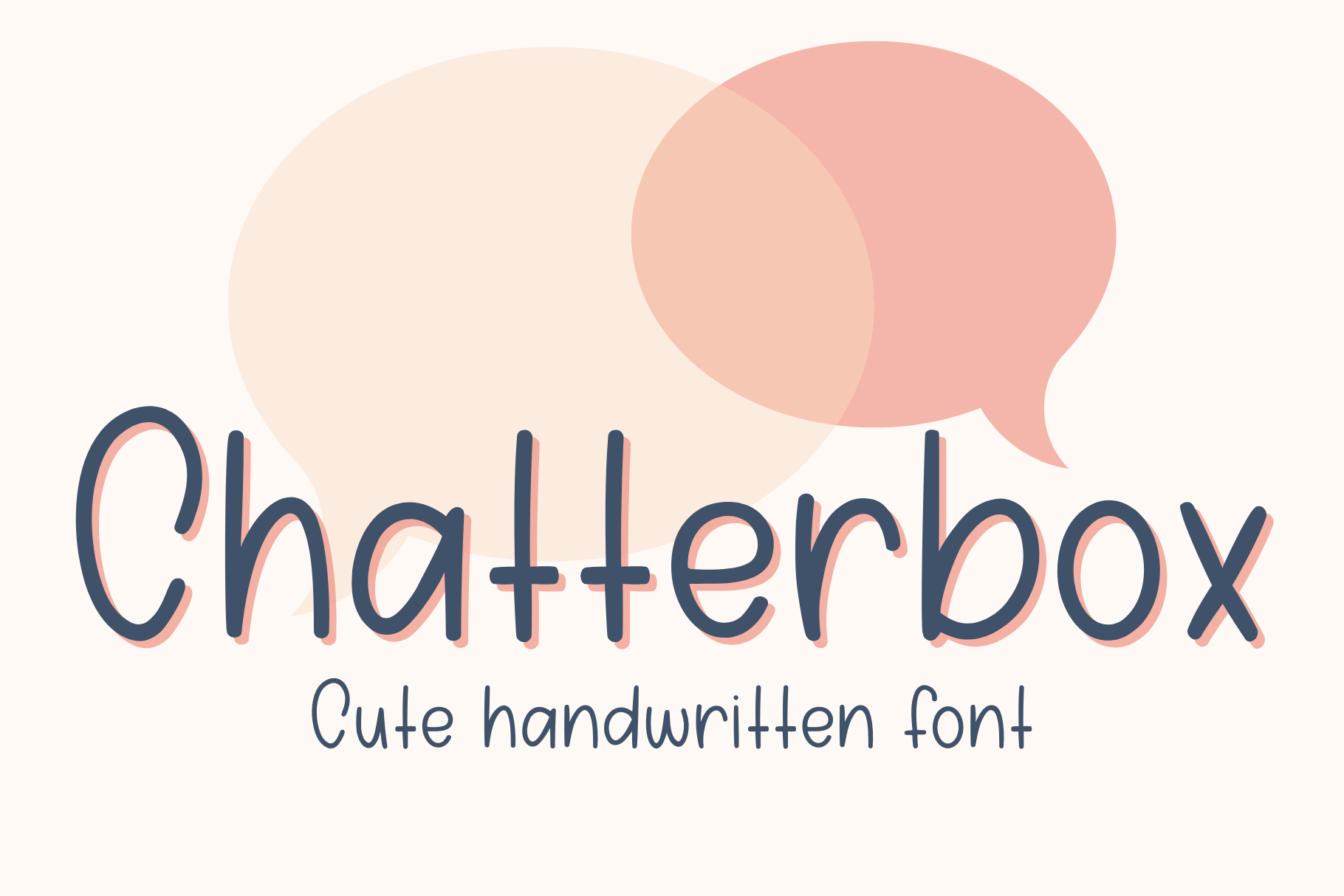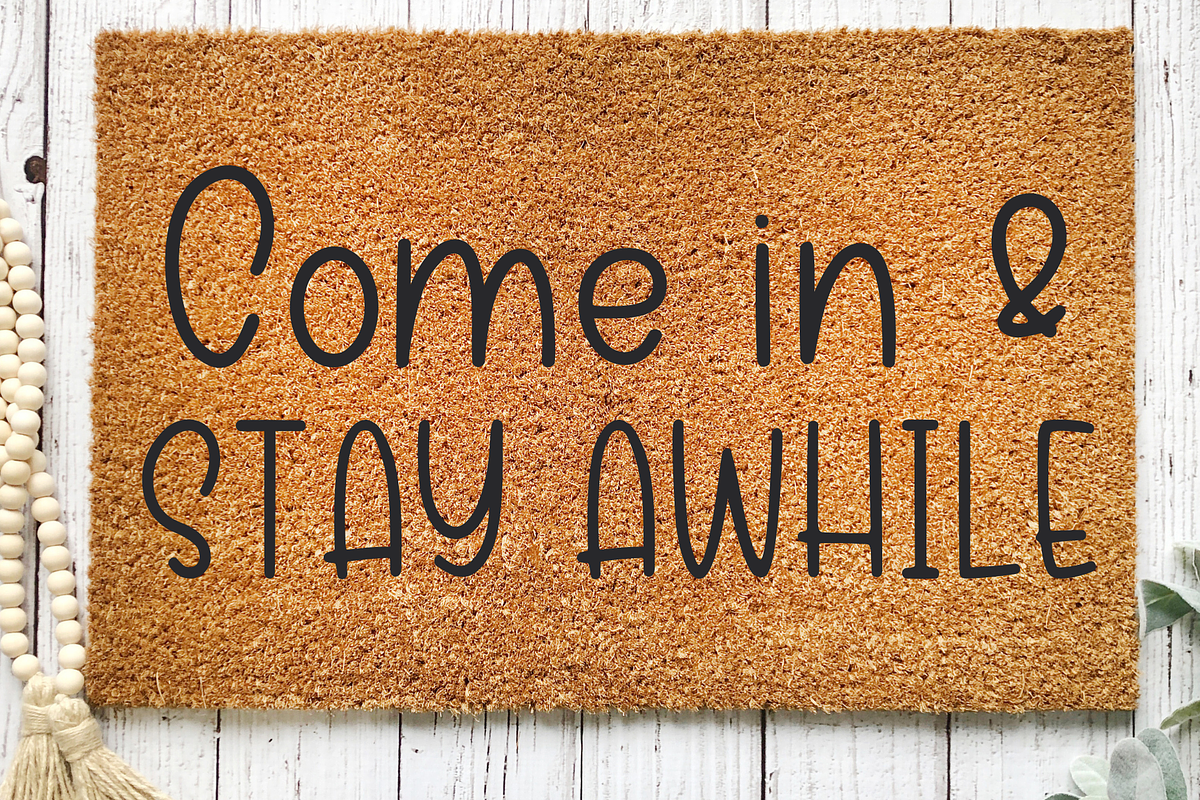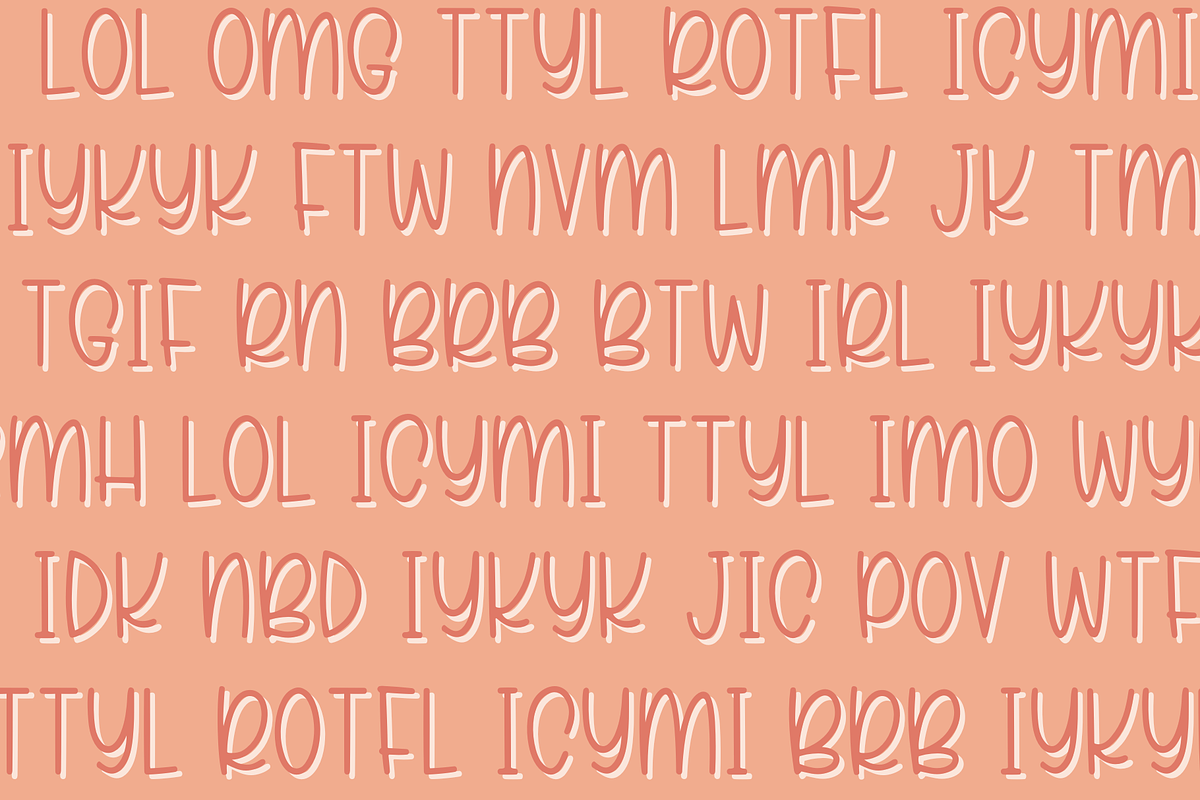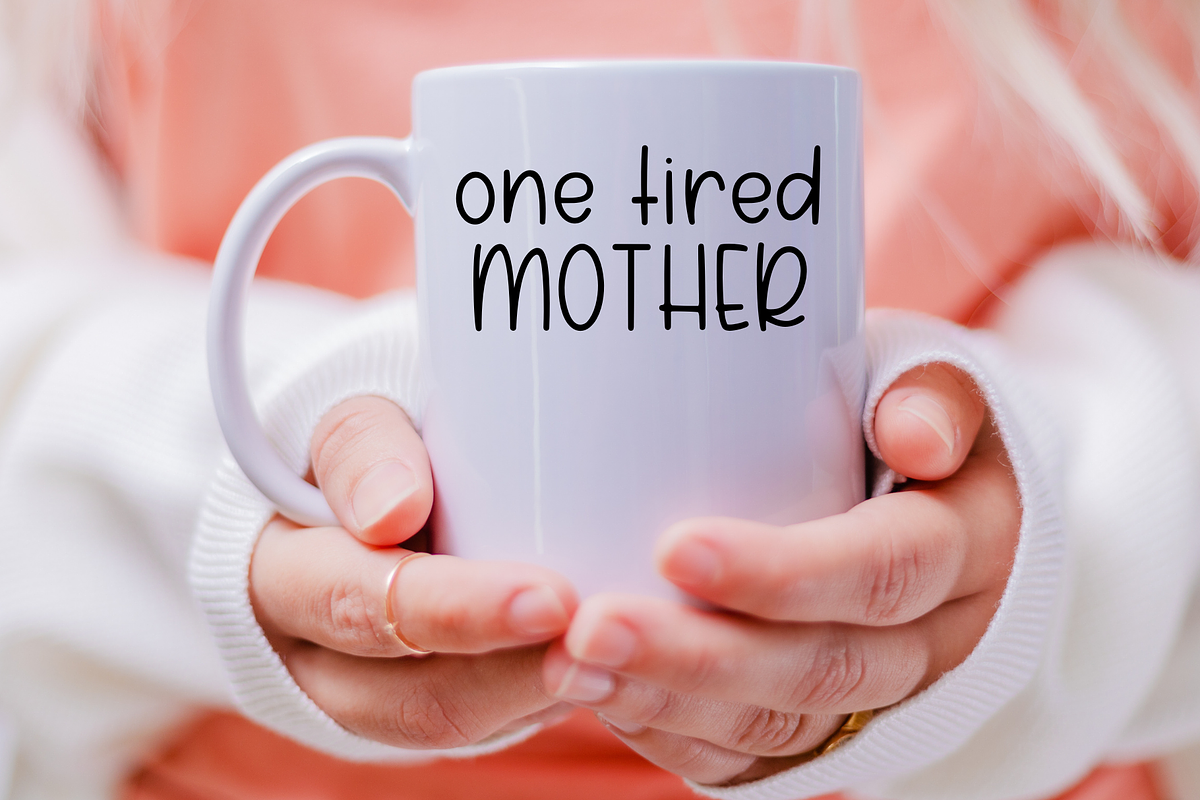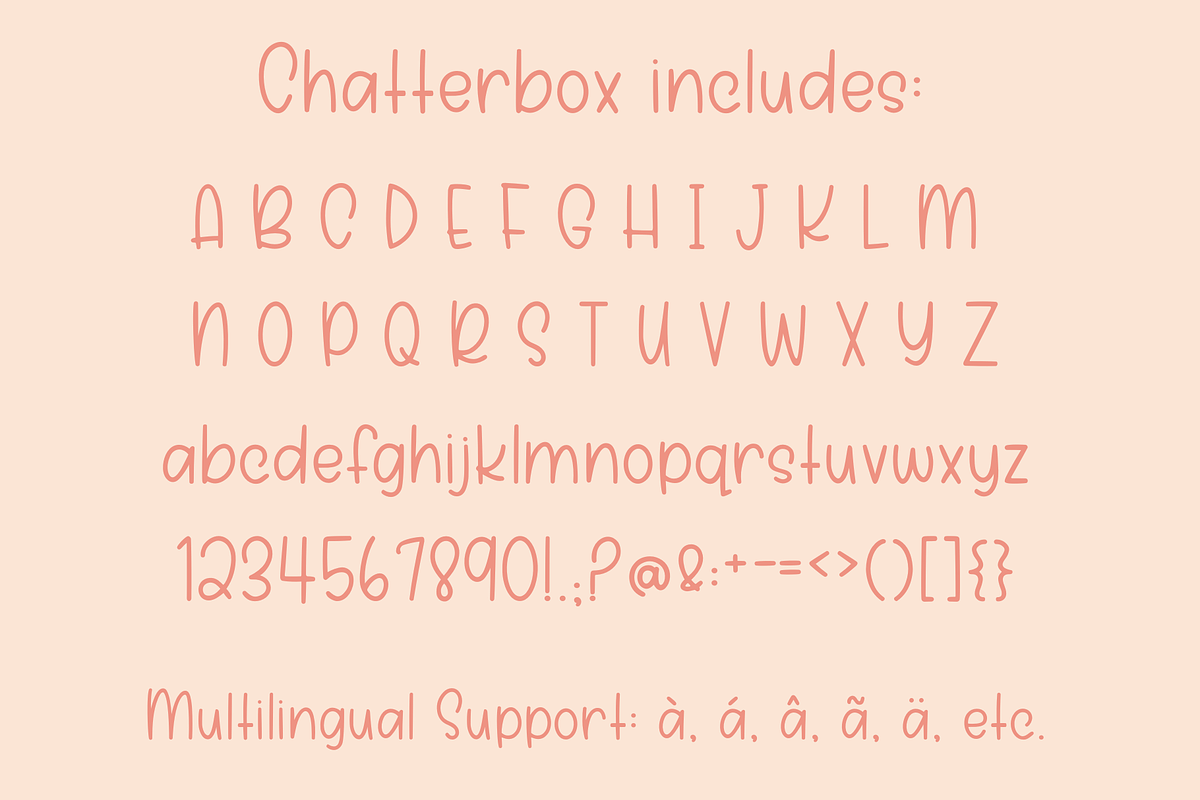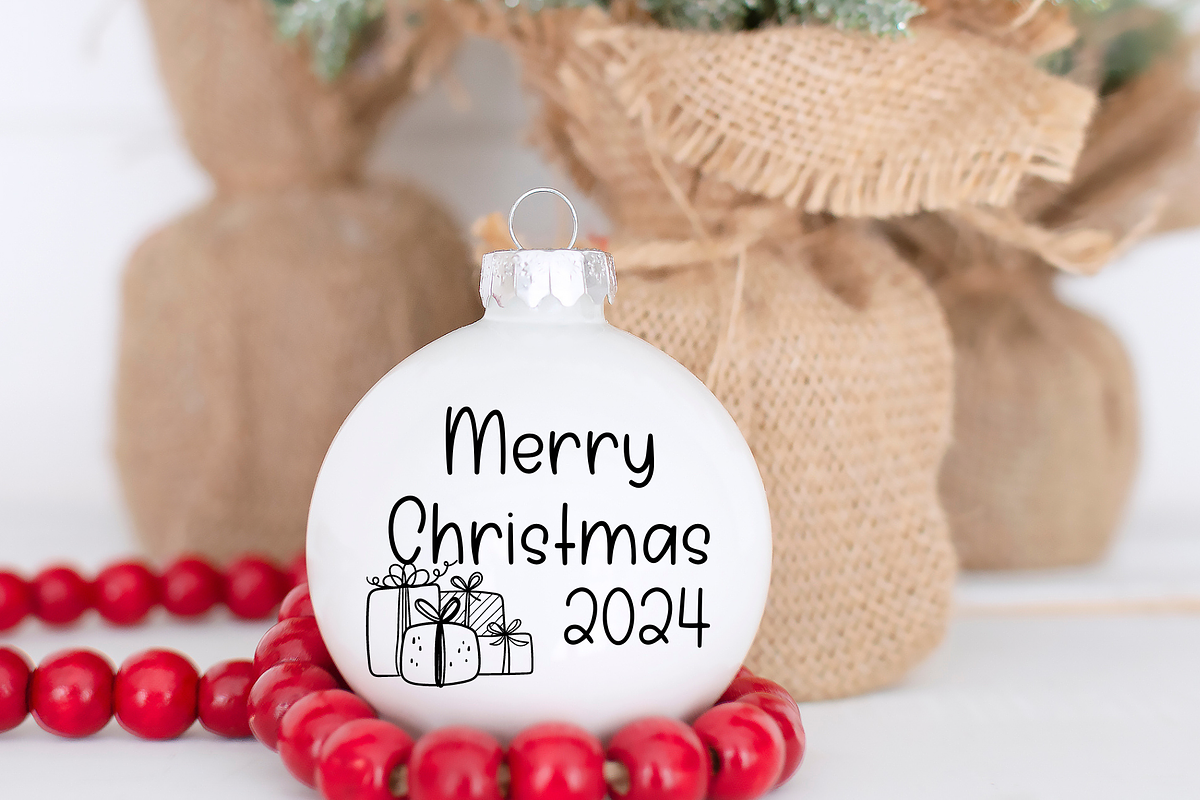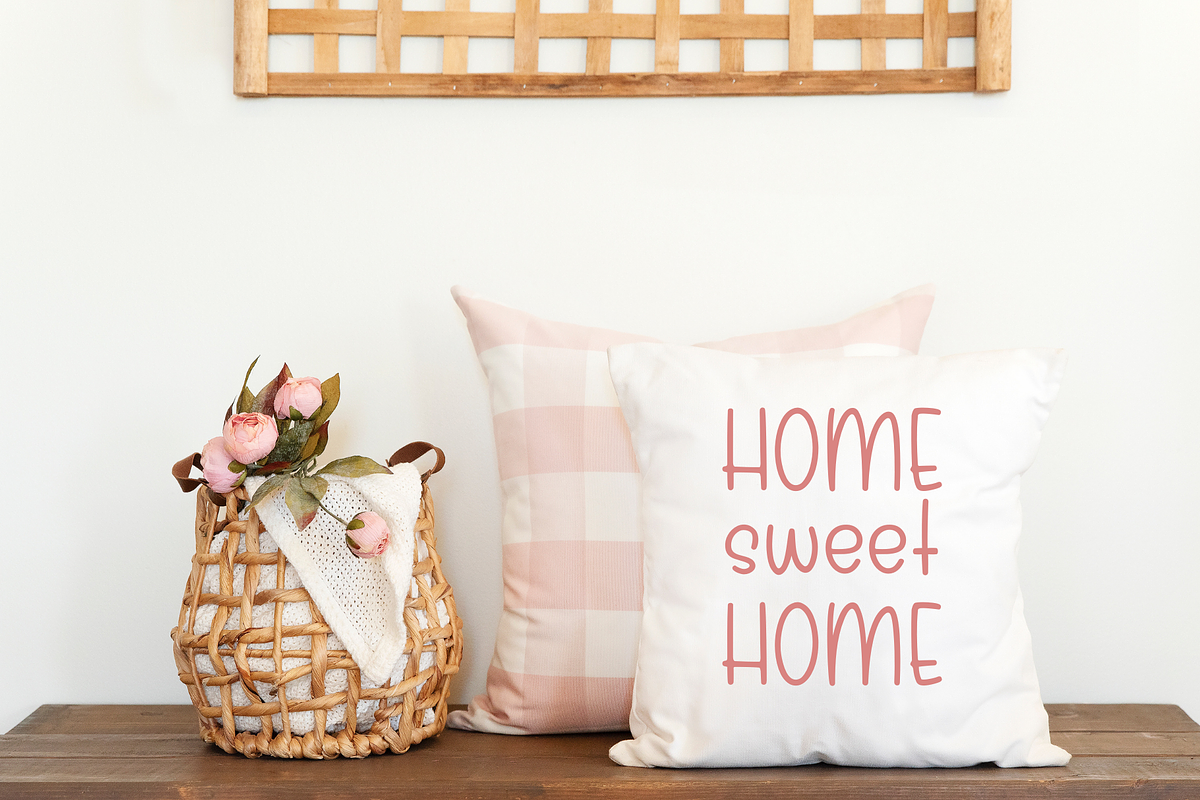
Chatterbox, Cute Handwritten Font
Introducing Chatterbox Handwritten Font for Cricut - a charming and fun addition to your creative projects! This unique handwriting font is perfect for all your Cricut designs, making it a must-have for craft enthusiasts. With its playful and fun handwriting style, it adds a touch of whimsy and personality to any project. Whether you're crafting cards, journaling, or designing SVG files, this font will bring your creations to life. Get ready to impress with our amazing Cricut font collection and unlock endless possibilities for your artistic endeavors!